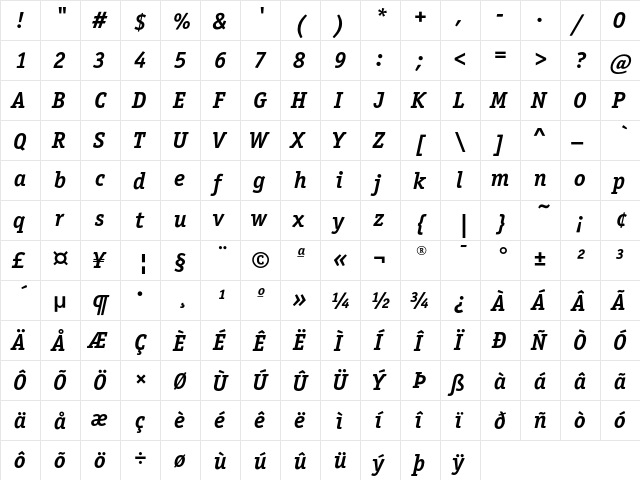
OfficinaSerifEF BoldItalic Font Preview
Design Context for OfficinaSerifEF Typeface
OfficinaSerifEF carries the refined structure of traditional serif typography, with bracketed terminals and considered proportions that communicate credibility and craft. The dynamic lean of this cut emphasises speed and emphasis in any layout. The heavy weight commands attention and anchors typographic hierarchies.
Pro Tip: Use OfficinaSerifEF for editorial body copy and considered headline work. Pair with a neutral sans for UI elements or captions to create a classic hierarchy.